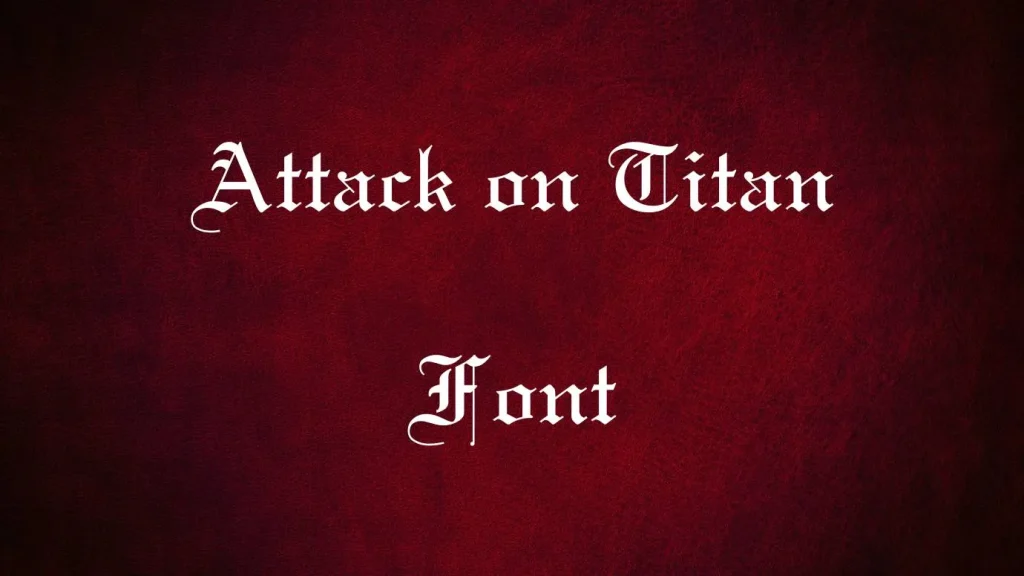
The text style has full sets of lowercase and uppercase basic characters, digits, and punctuation included in the typeface. Due to its sharp-looking
Attack on Titan Font is a Japanese series that was first initiated in Bessatsu Shonen Magazine on 9 September 2009. The font that has been used in the series is Linotext Font which was created by Morris Fuller Benton in 1901.
The text style has full sets of lowercase and uppercase basic characters, digits, and punctuation included in the typeface. Due to its sharp-looking characters, it is ideal for lively style and athletic game design objectives.
This font's versatility makes it appropriate for projects involving appealing text design. For use with TTF and OTF formats, this font's normal weight is the only one available. This game typeface is well-known across many creative mediums. Main Features of Attack on Titan Font
Because of this typeface's sleek design, designers may primarily utilize it to create easy web pages and logos. To create more fascinating designs that are comparable to this style that you can use for your great creative needs, pair it with engravers gothic font.
This fantastic font may be used to create appealing postcard designs, brand logo designs, booklet layouts, and invoice designs. This magnificent typeface is appropriate for video game designs, sports game designs, and many forms of video editing tasks in different applications.
You may use this style to create designs for t-shirts, jeans, clothing, and many branding projects. For branding projects, wall painting designs, social media postings, and e-book cover designs, this typeface is ideal. It is ideal to use for watermarking designs, creating menus, and creating titles.
The typeface that has been used in the series Attack on Titan is Linotext Font which was created by Morris Fuller Benton in 1901.
This magnificent typeface is appropriate for video game designs, sports game designs, and many forms of video editing tasks.